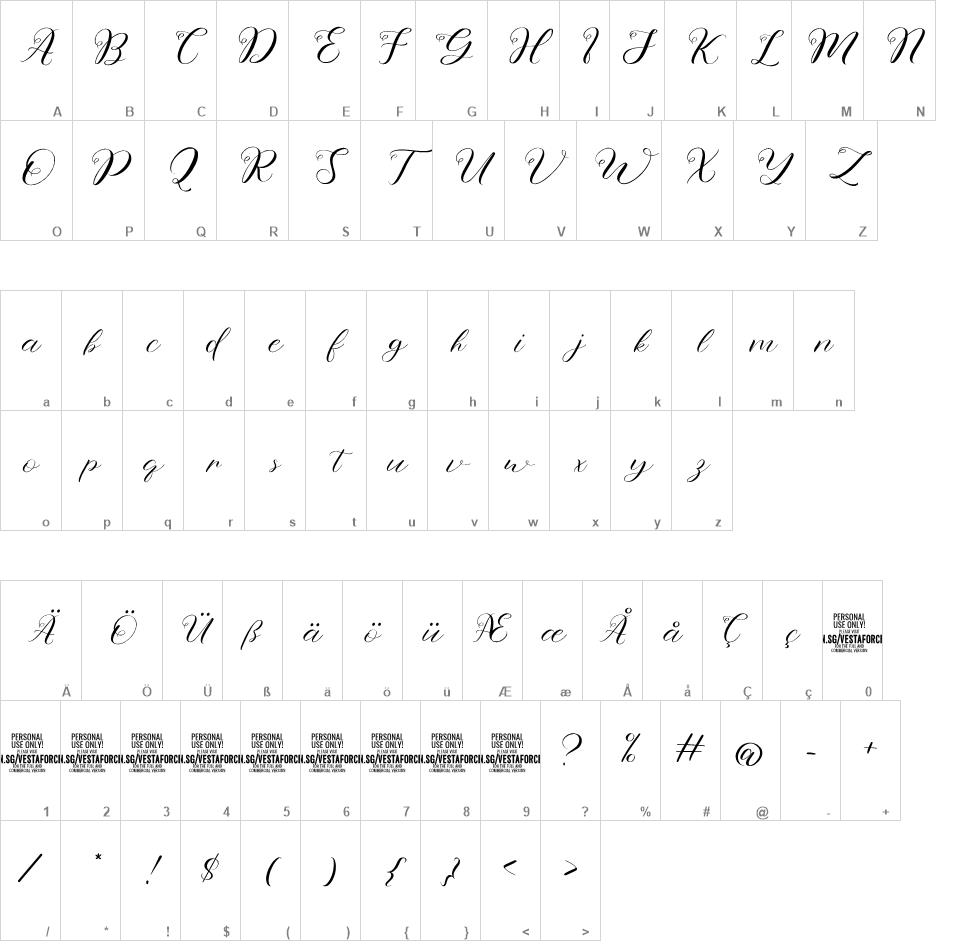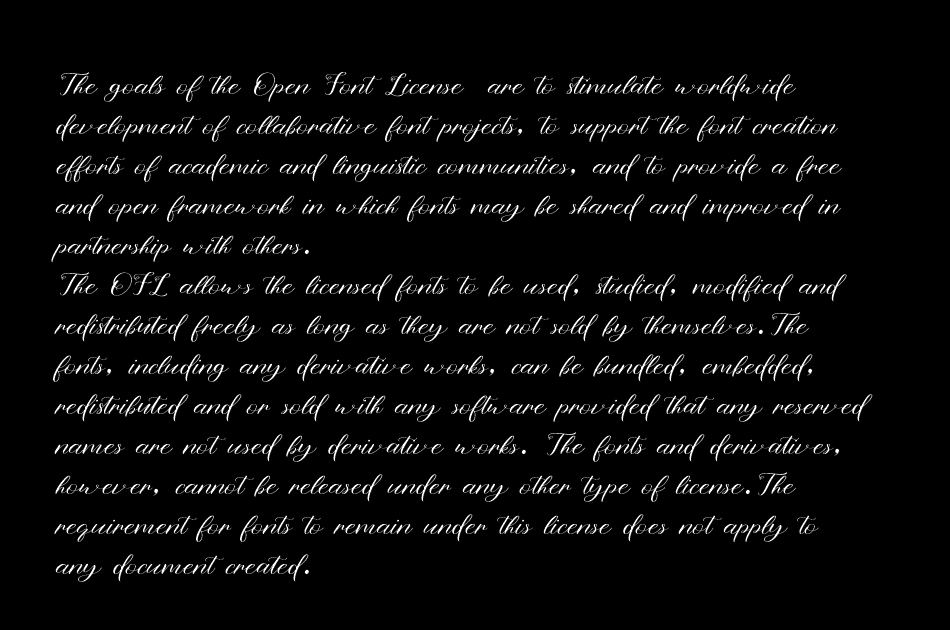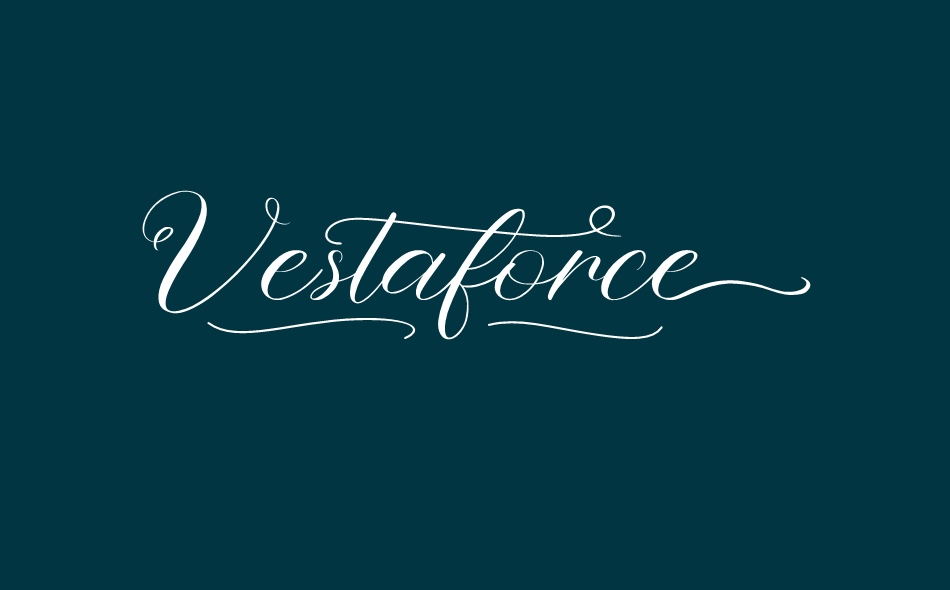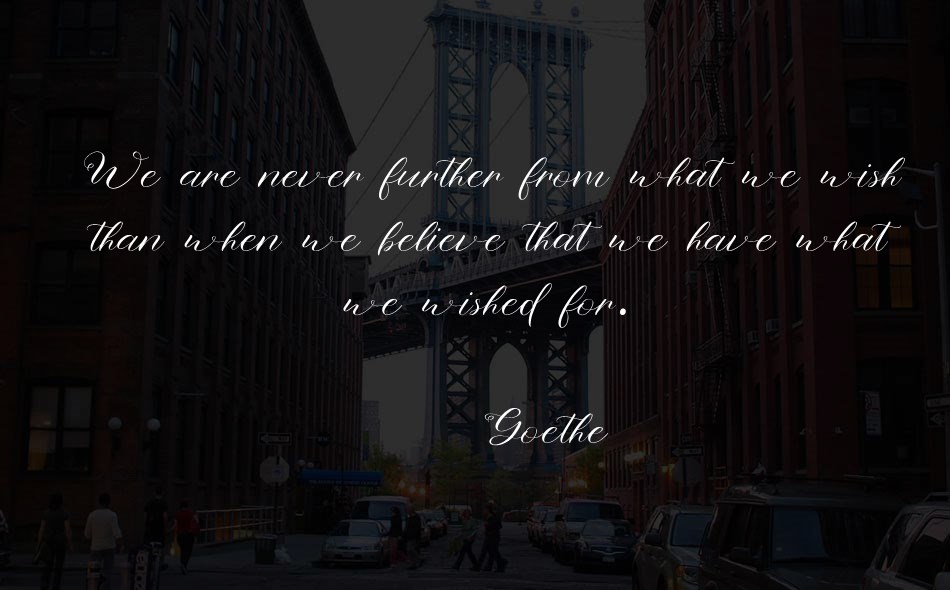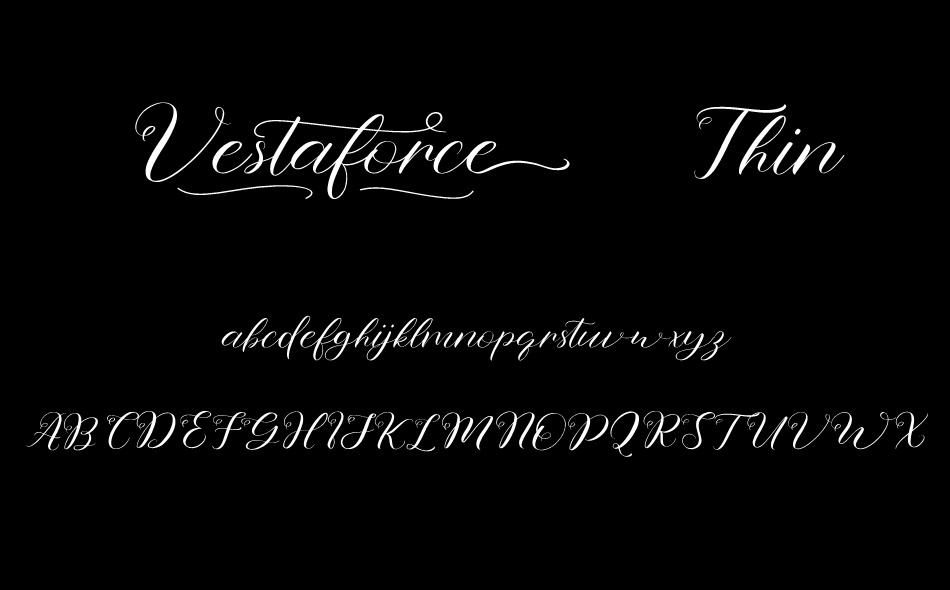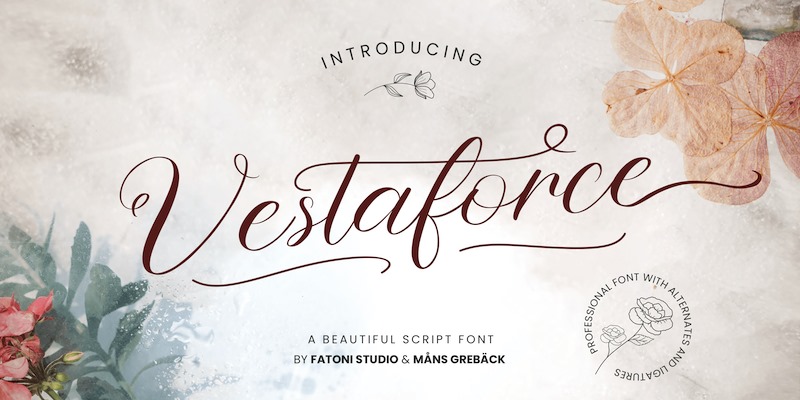
Use underscore _ to make a swash.
Example: Wonder_woman
Use multiple underscores for different swashes.
Example: Beaut_____iful
Vestaforce is a swirly handwriting typeface.
In a calligraphic style, this quirky font family will give your project a festive and naive look. Use it for a cute logotype or a happy poster design.
The Vestaforce typeface family consists of three styles: Thin, Regular and Bold
Use underscore _ to make a swash. Example: Wonder_woman Use multiple underscores for different swashes. Example: Beaut_____iful (Download required.)
The font is built with advanced OpenType functionality and has a guaranteed top-notch quality, containing stylistic and contextual alternates, ligatures and more features; all to give you full control and customizability. It has extensive lingual support, covering all Latin-based languages, from Northern Europe to South Africa, from America to South-East Asia. It contains all characters and symbols you'll ever need, including all punctuation and numbers.